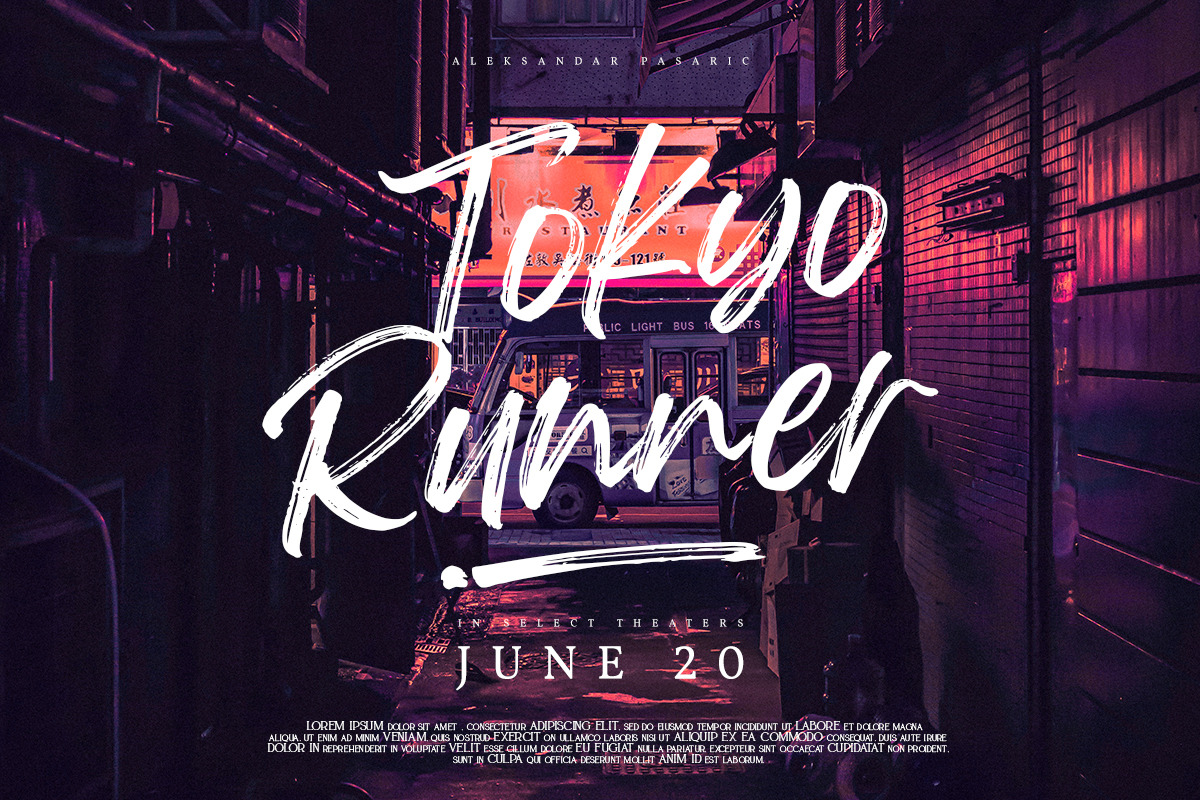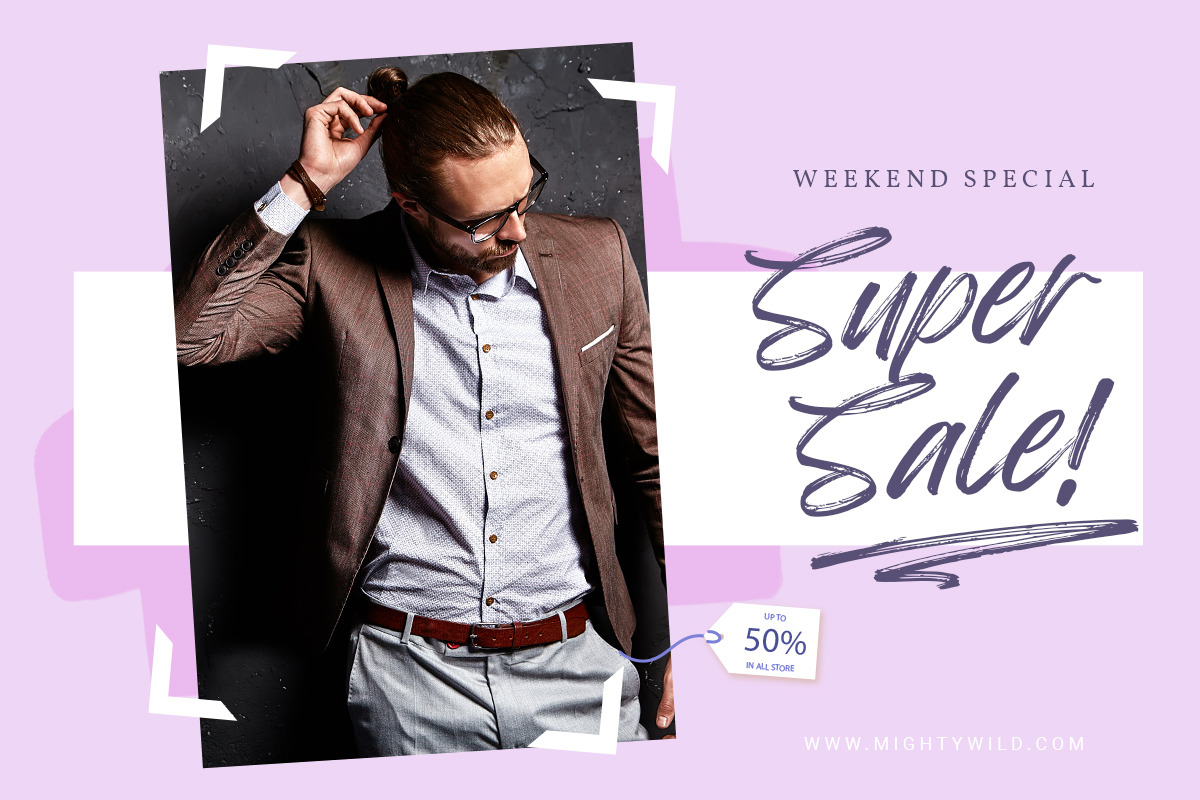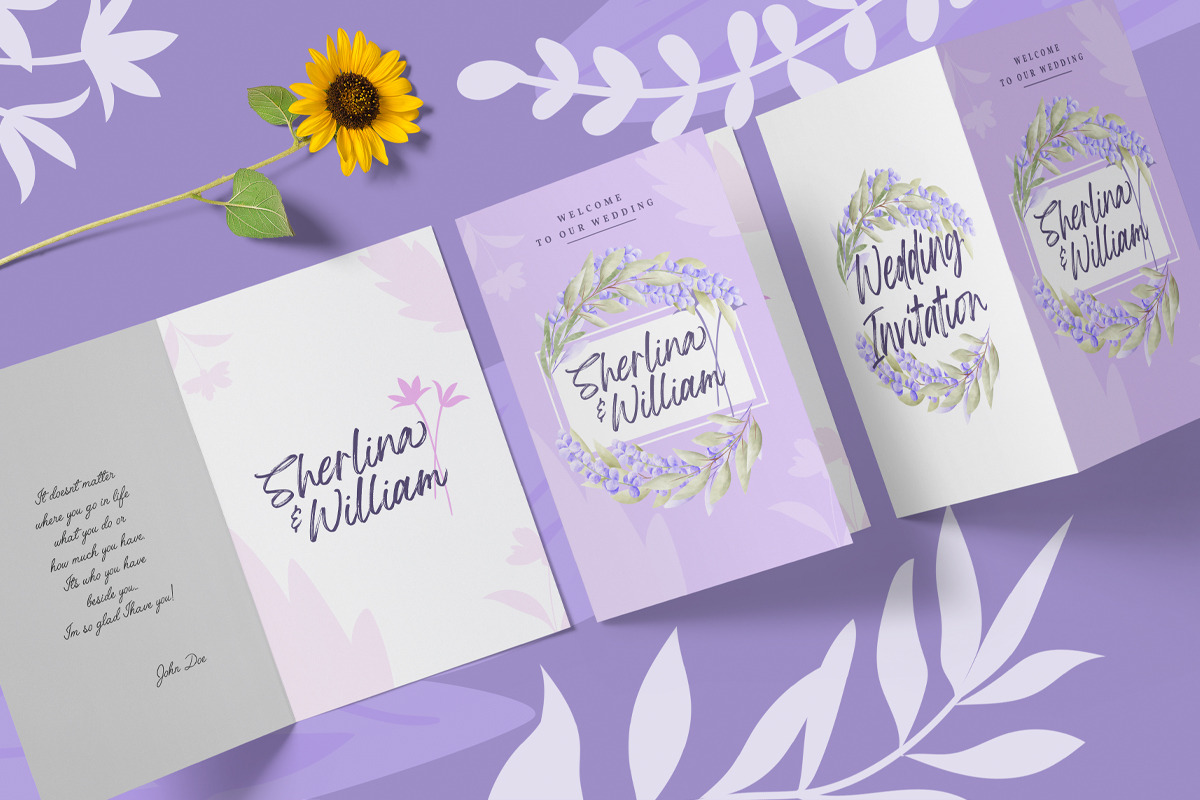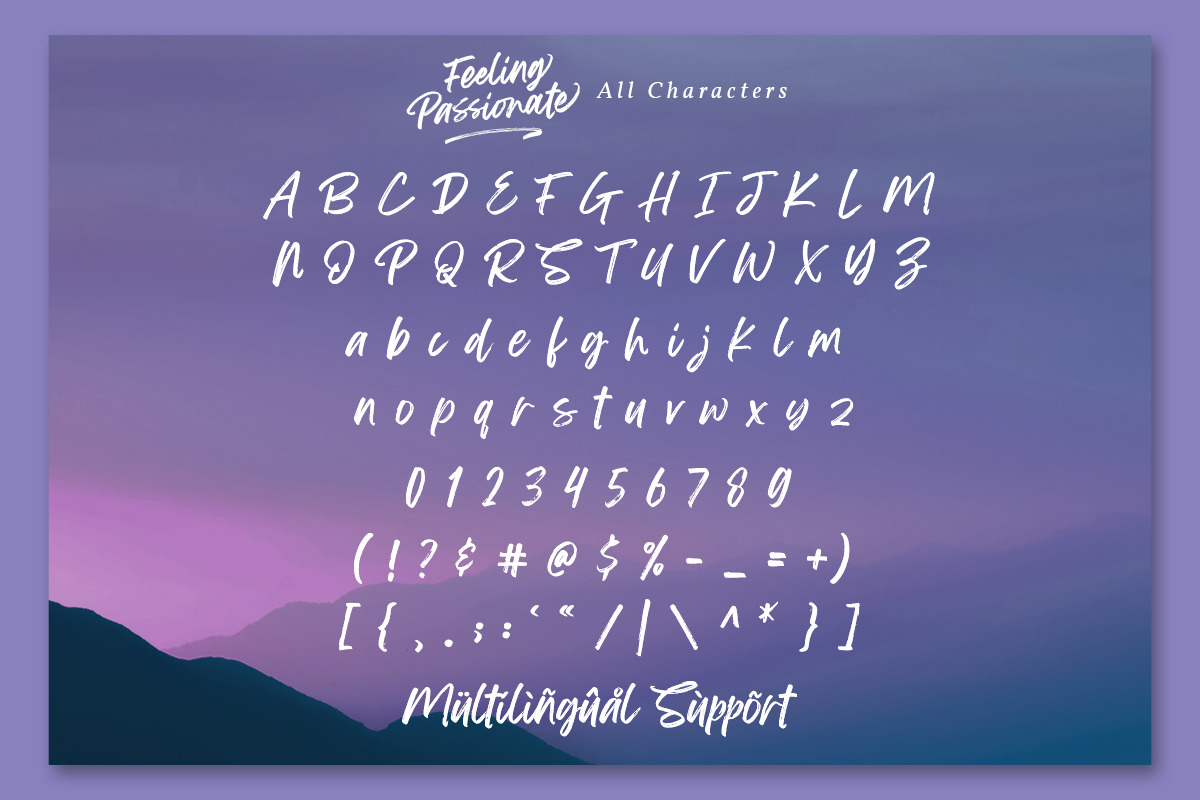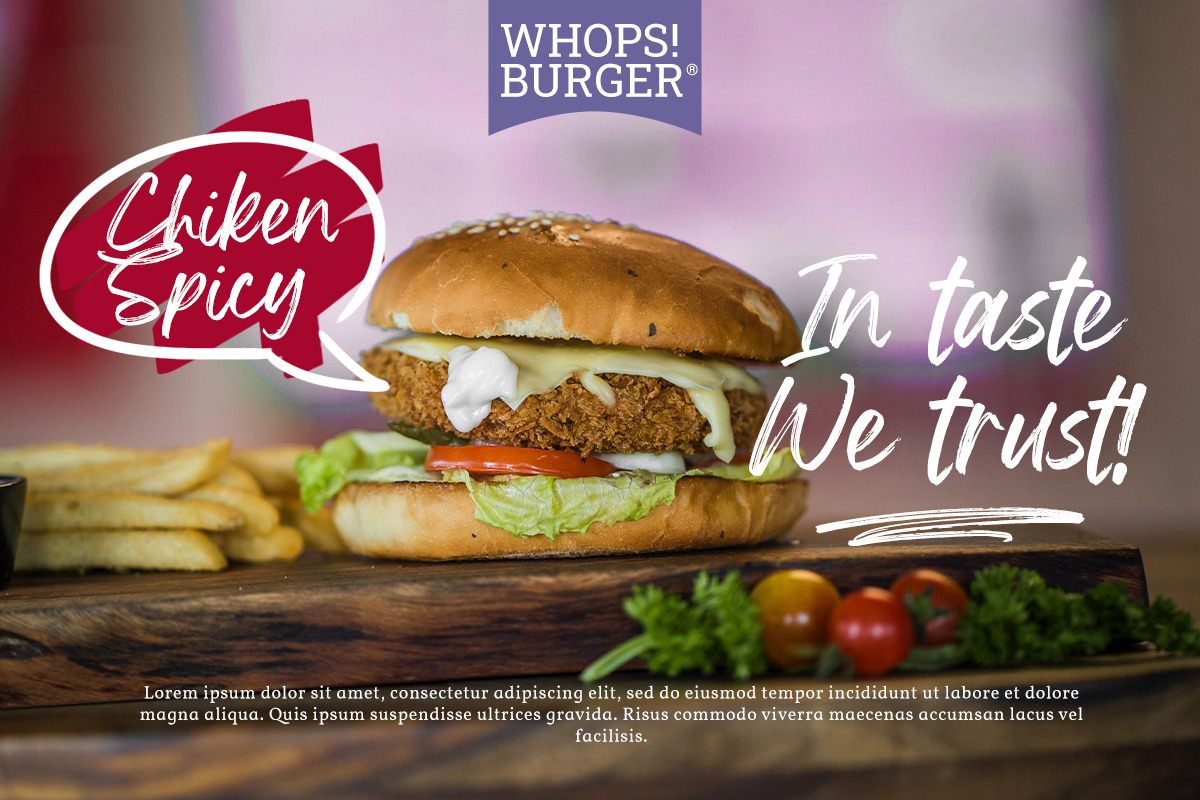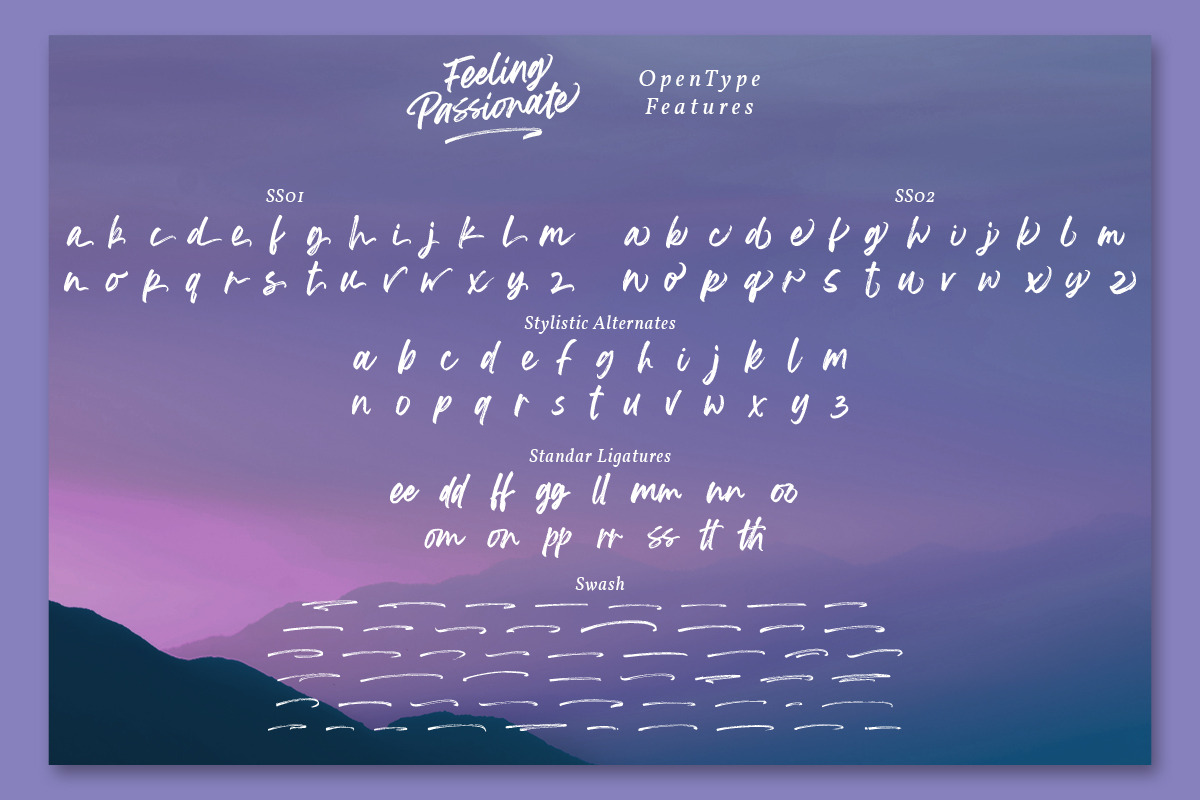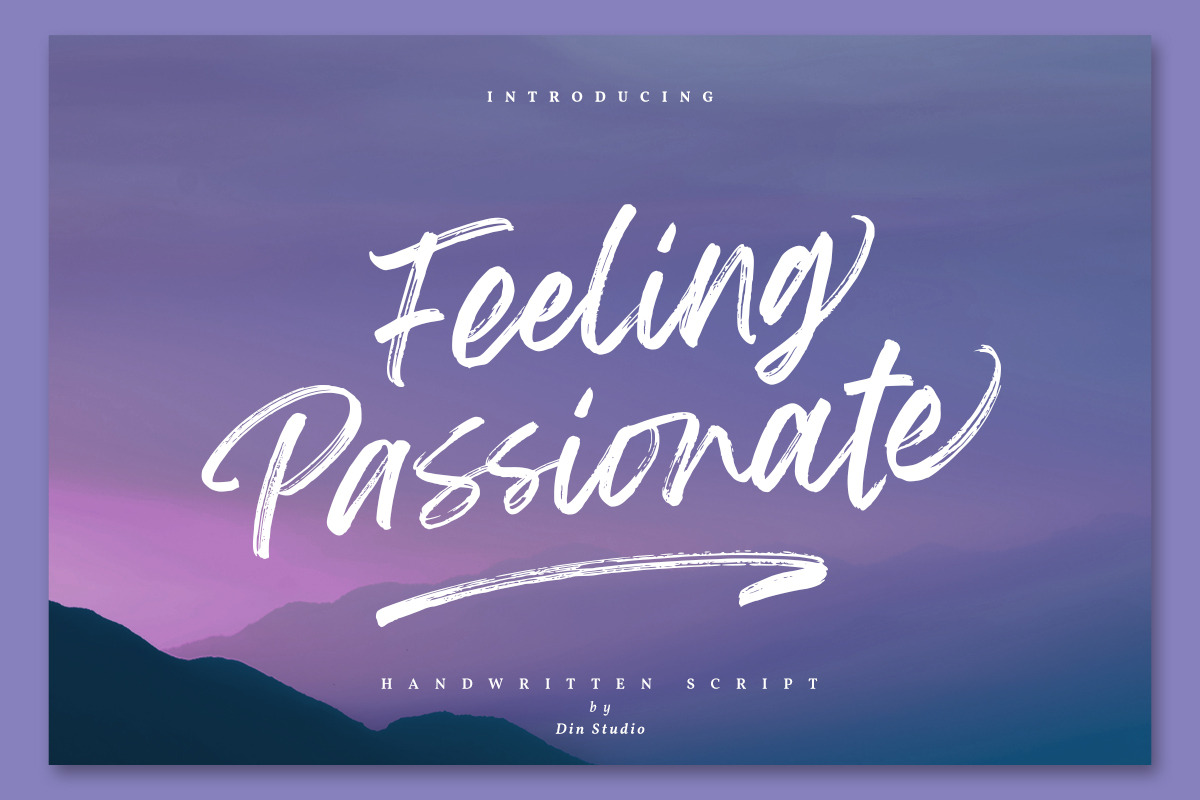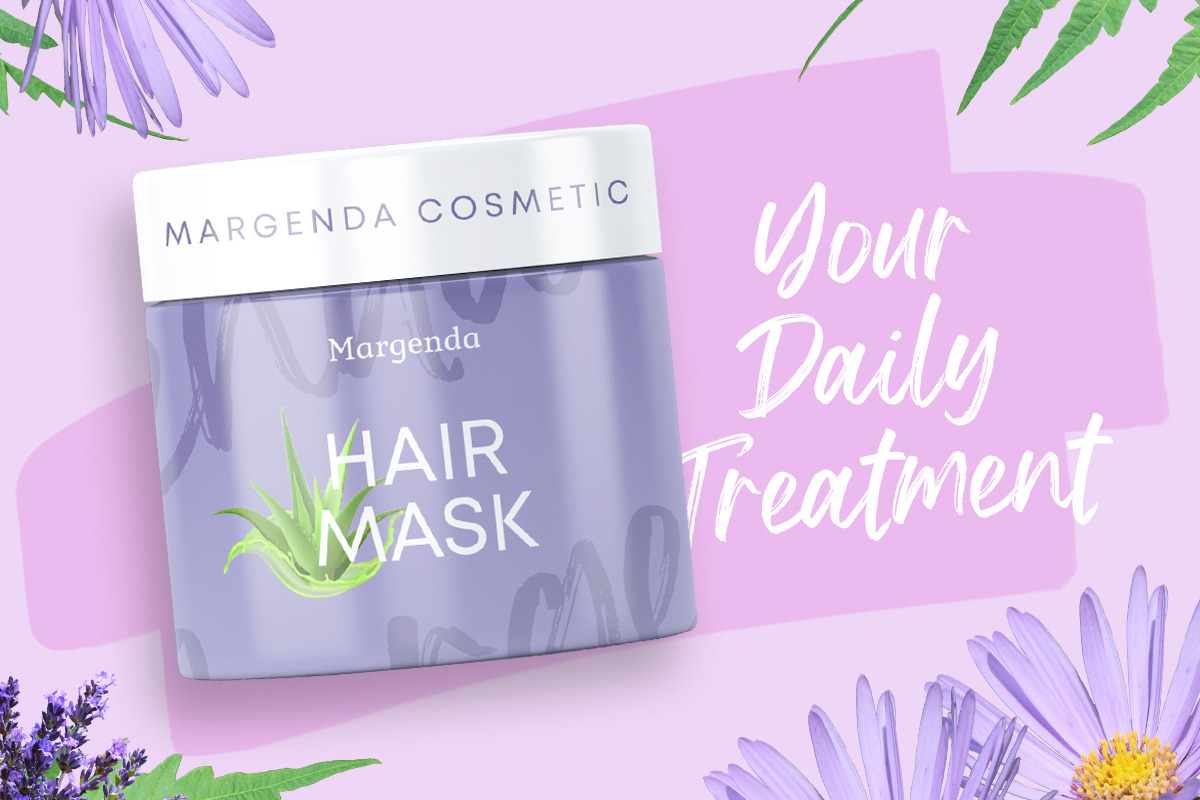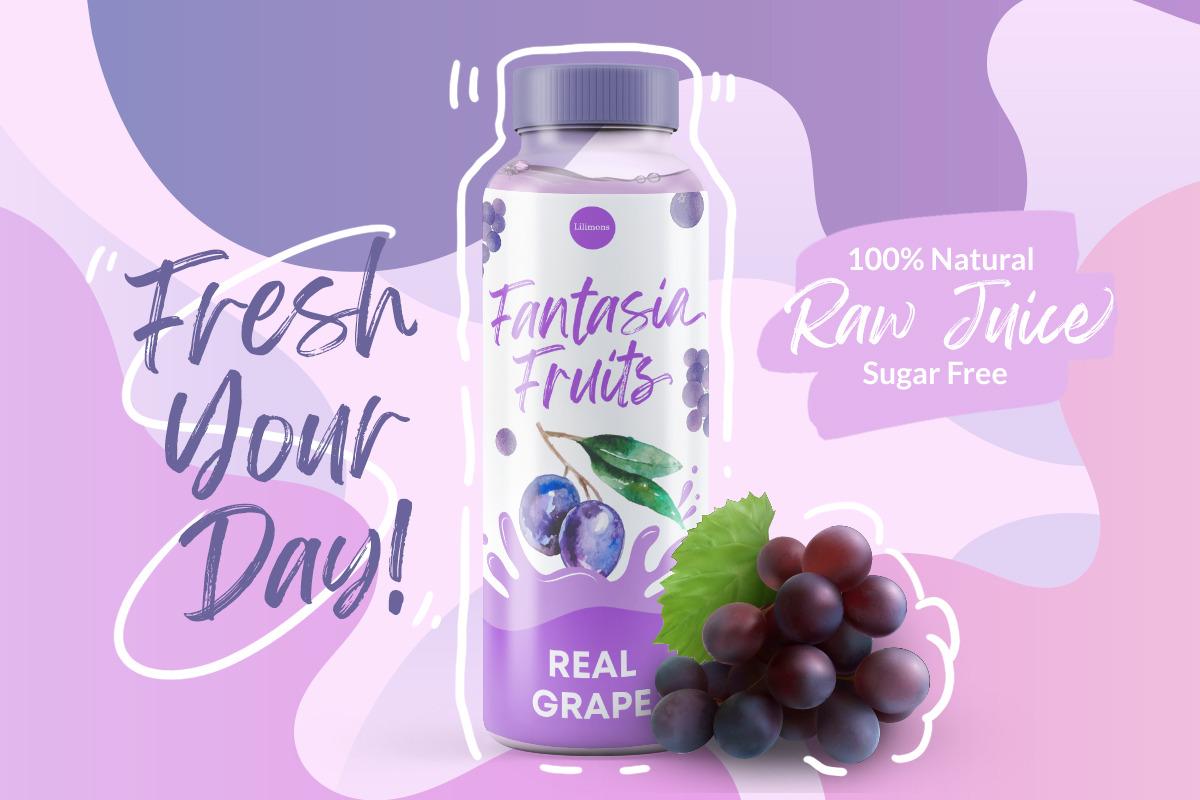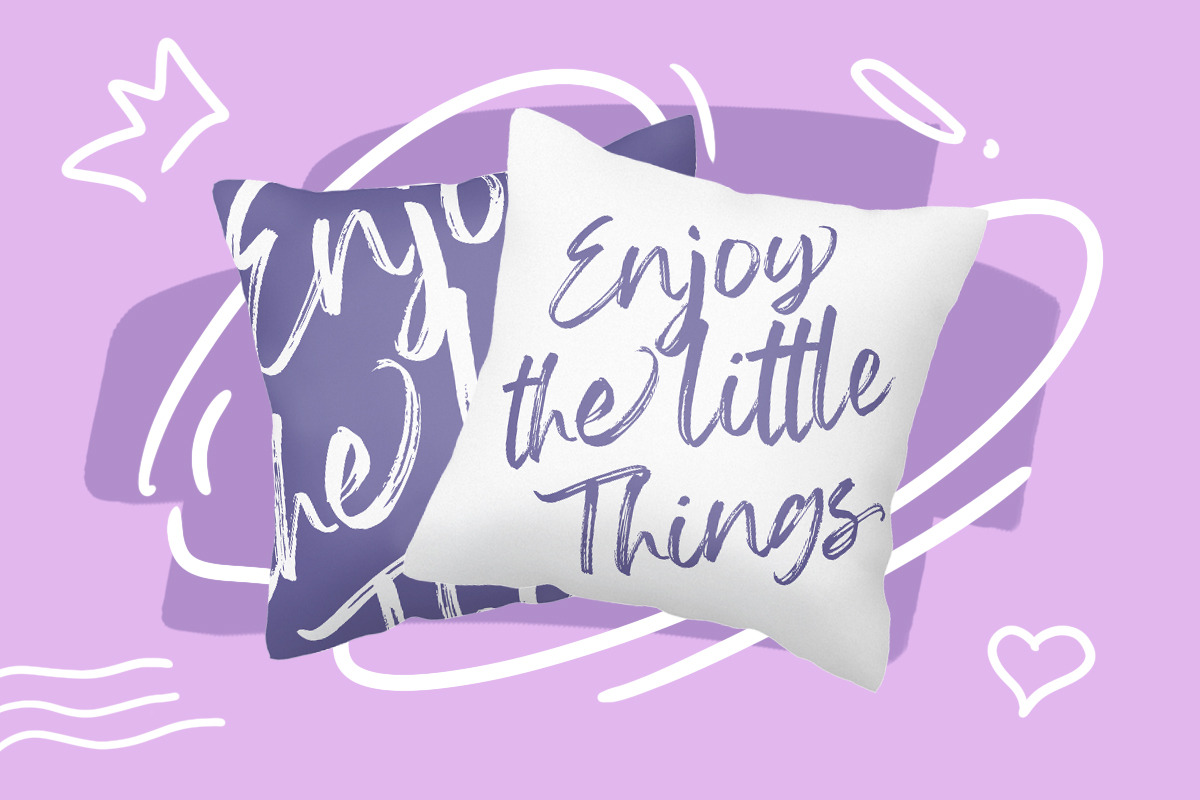
Feeling Passionate - Brush Font
Feeling Passionate is a casual and beautiful brush font. It will make your design project more beautiful. This font is suitable for various designs, such as posters, banners, logos, book covers, headings, printed products, merchandise, social media, and more. Find out more ways to use this font by taking a look at the font preview.
78 Beautiful Alternates
15 Beautiful Ligatures
52 Swashes
Multi-lingual Support
Numerals and Punctuations